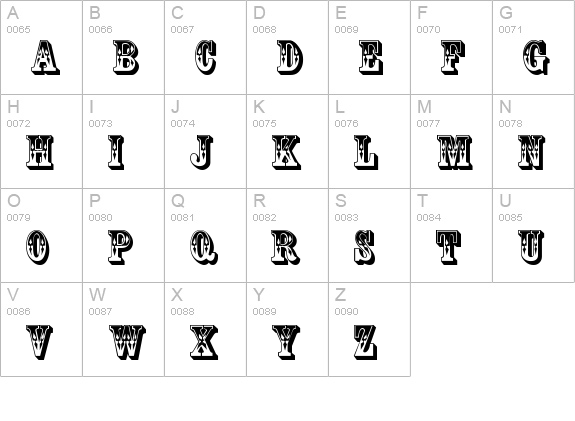
Coffee Tin MF Initials Font Details
Coffee Tin MF Initials font is a unique and stylish typeface that exudes a vintage charm with its ornate design and intricate details. Inspired by the typography found on classic coffee tins, this font is perfect for adding a touch of nostalgia to your designs. The intricate swirls and flourishes of the initials give a sophisticated and elegant look, making it ideal for branding, invitations, and other creative projects. Best of all, Coffee Tin MF Initials font is available for free download at FontsMarket.com. This means you can easily add this beautiful typeface to your collection without any cost. Don't miss out on the opportunity to enhance your designs with the timeless elegance of Coffee Tin MF Initials font. Download it now and let your creativity shine!